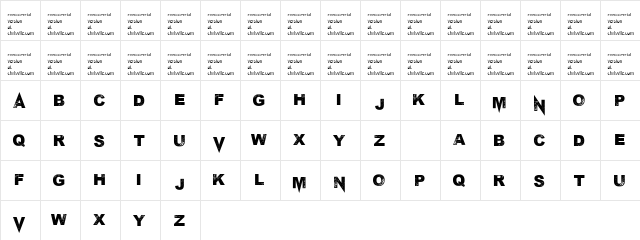
M Ponderosa Regular
| Foundry | Fonts by Chris Vile |
| Designer | Chris Vile |
Design Context for M Ponderosa Typeface
M Ponderosa is a composed and adaptable typeface that performs quietly and consistently across a wide range of design contexts.